Geometric fonts are indeed perfect for enhancing the typography because of their highly clean and very minimalist look that has been well-balanced. These consist of very simple shapes such as circles, squares, and triangles that amicably harmonize the resulting precision for any piece of layout. They can be very versatile both in digital as well as in print media, making them very good for branding purposes, web design, logos, and editorial design.
Berka Font
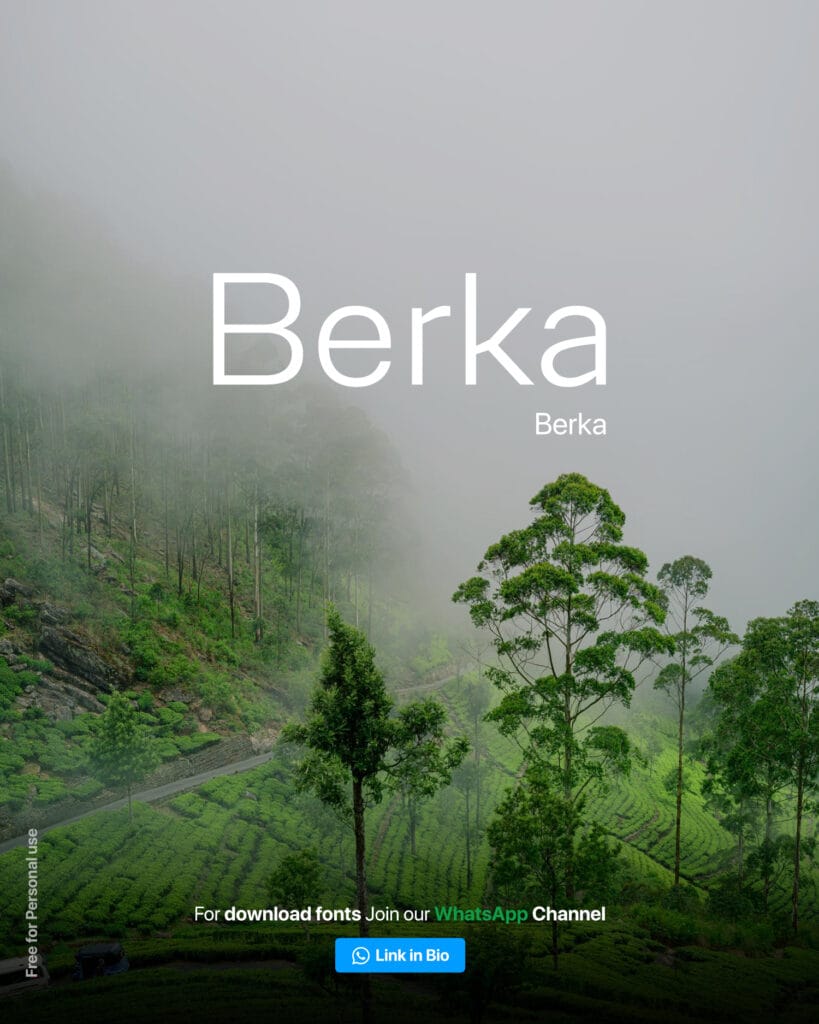
Cagody Font
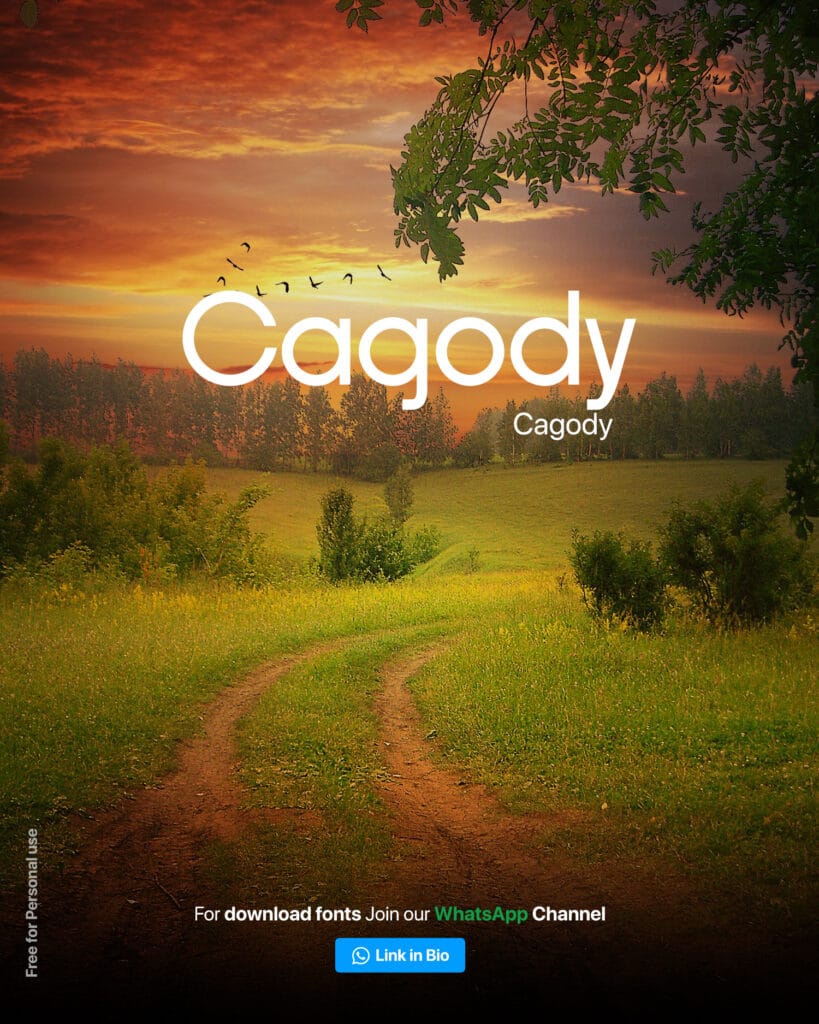
Contraband Font
Largest Genome font
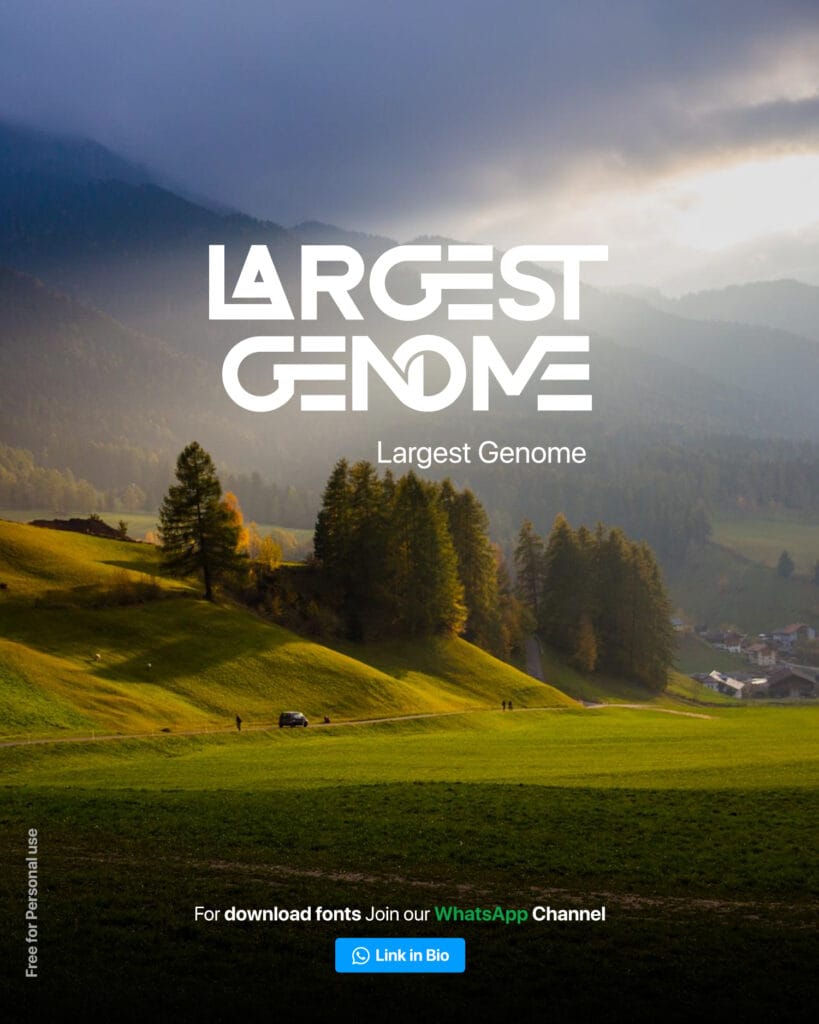
Neue Gravica Font
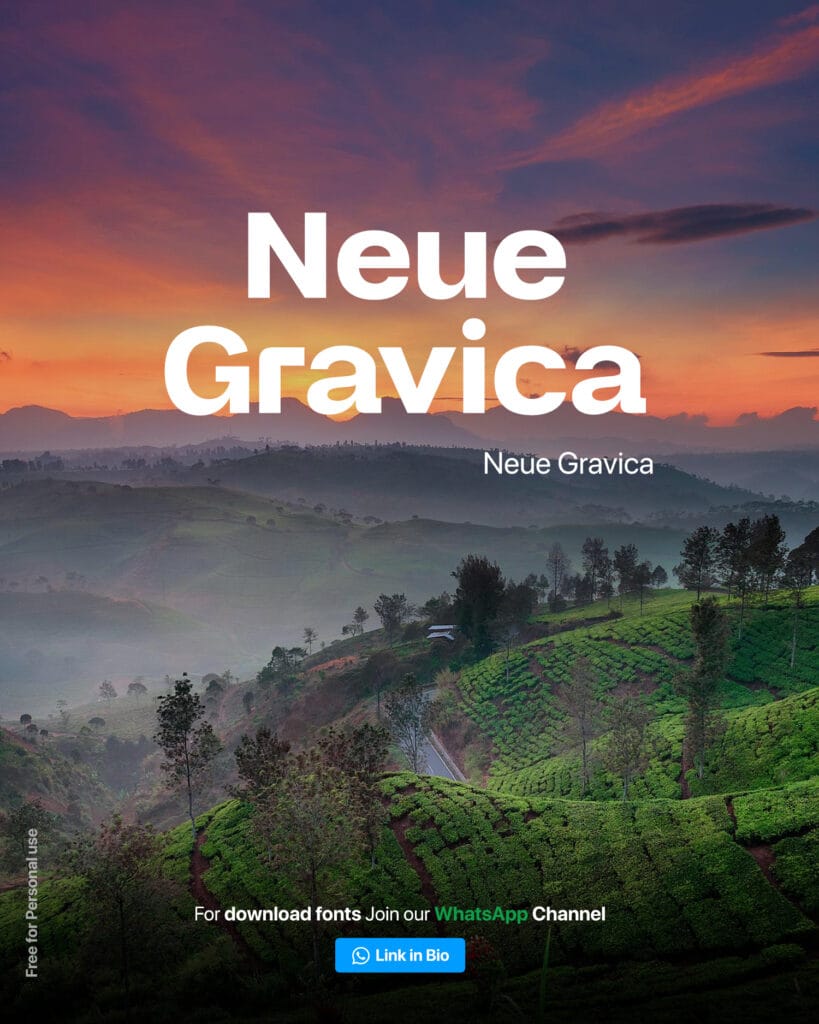
Offaly Font